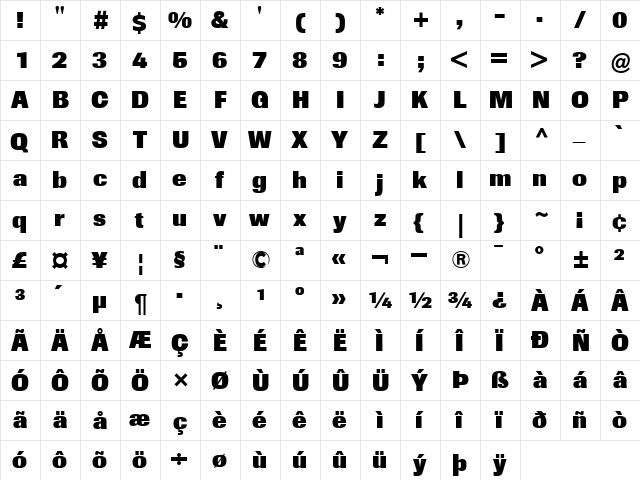
BertholdImago-ExtraBold Extra Bold Font Preview
BertholdImago-ExtraBold Extra Bold
Design Context for BertholdImago-ExtraBold Typeface
BertholdImago-ExtraBold offers clean, dependable letterforms without strong stylistic allegiance, making it a practical choice for designers who need flexibility. The heavy weight commands attention and anchors typographic hierarchies.